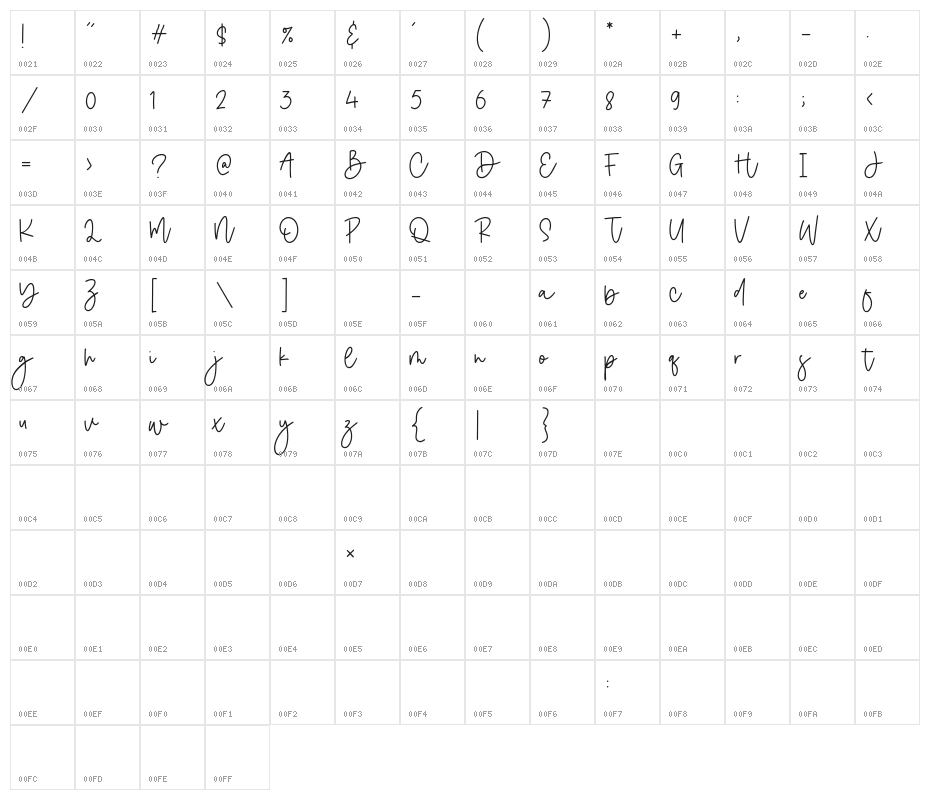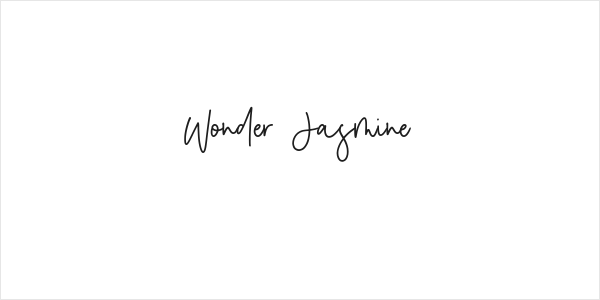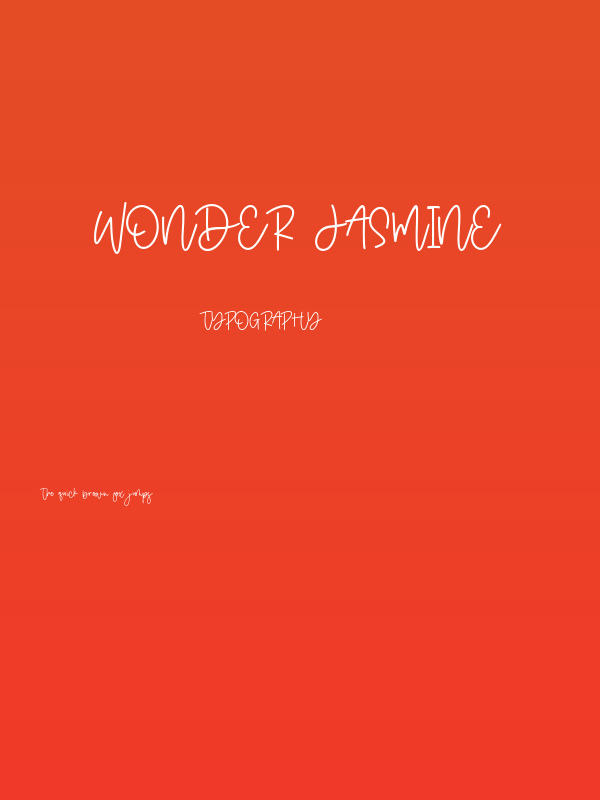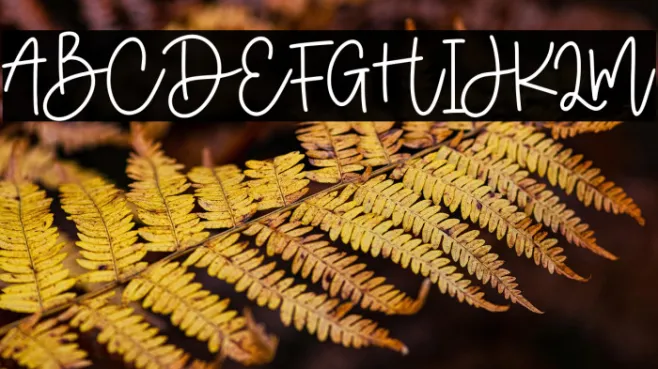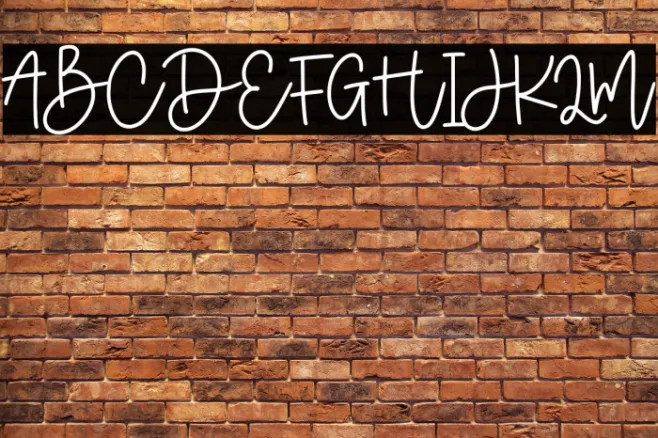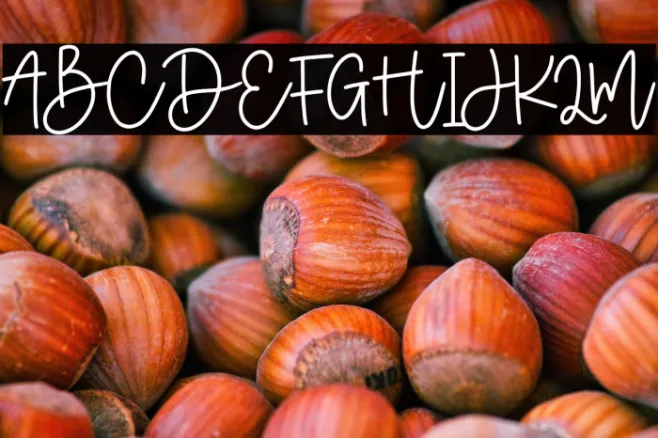
Wonder Jasmine Font
Wonder Jasmine Description
This font features a playful and whimsical handwritten style, characterized by its flowing, cursive-like strokes. The letters are interconnected, creating a sense of continuity and fluidity. The uppercase letters maintain a consistent height, while the lowercase letters exhibit a charming irregularity, adding to the font's casual and friendly appearance. The numerals are clear and legible, complementing the overall style. Special characters are included, maintaining the same playful aesthetic. This font exudes a sense of creativity and personal touch, making it ideal for projects that require a warm and inviting feel.
| Overall Style | Casual and playful |
| Use Case | Logos, headlines, decorative text |
| Proposed Projects | Greeting cards, invitations, personal branding, social media graphics, and creative projects. |